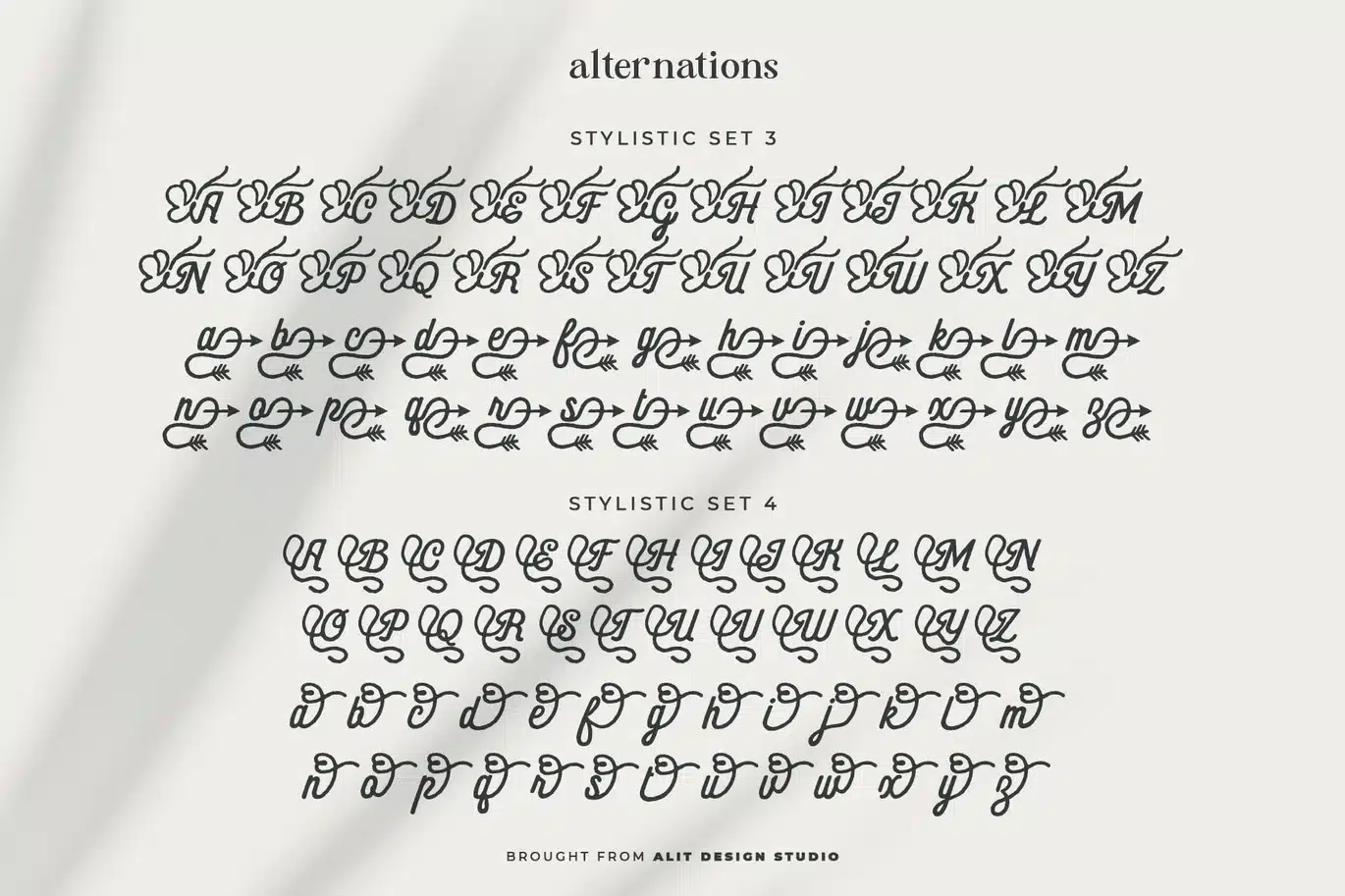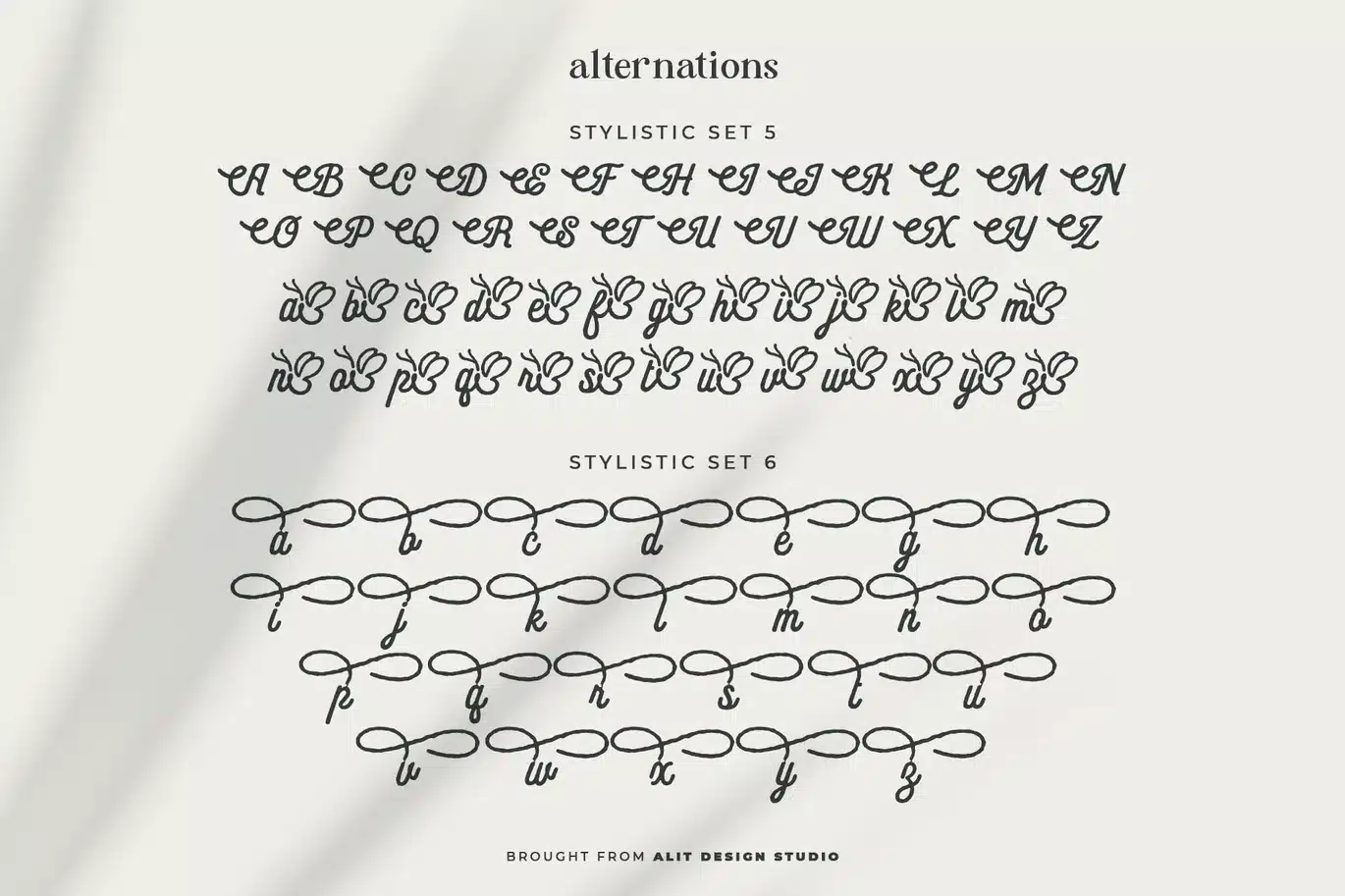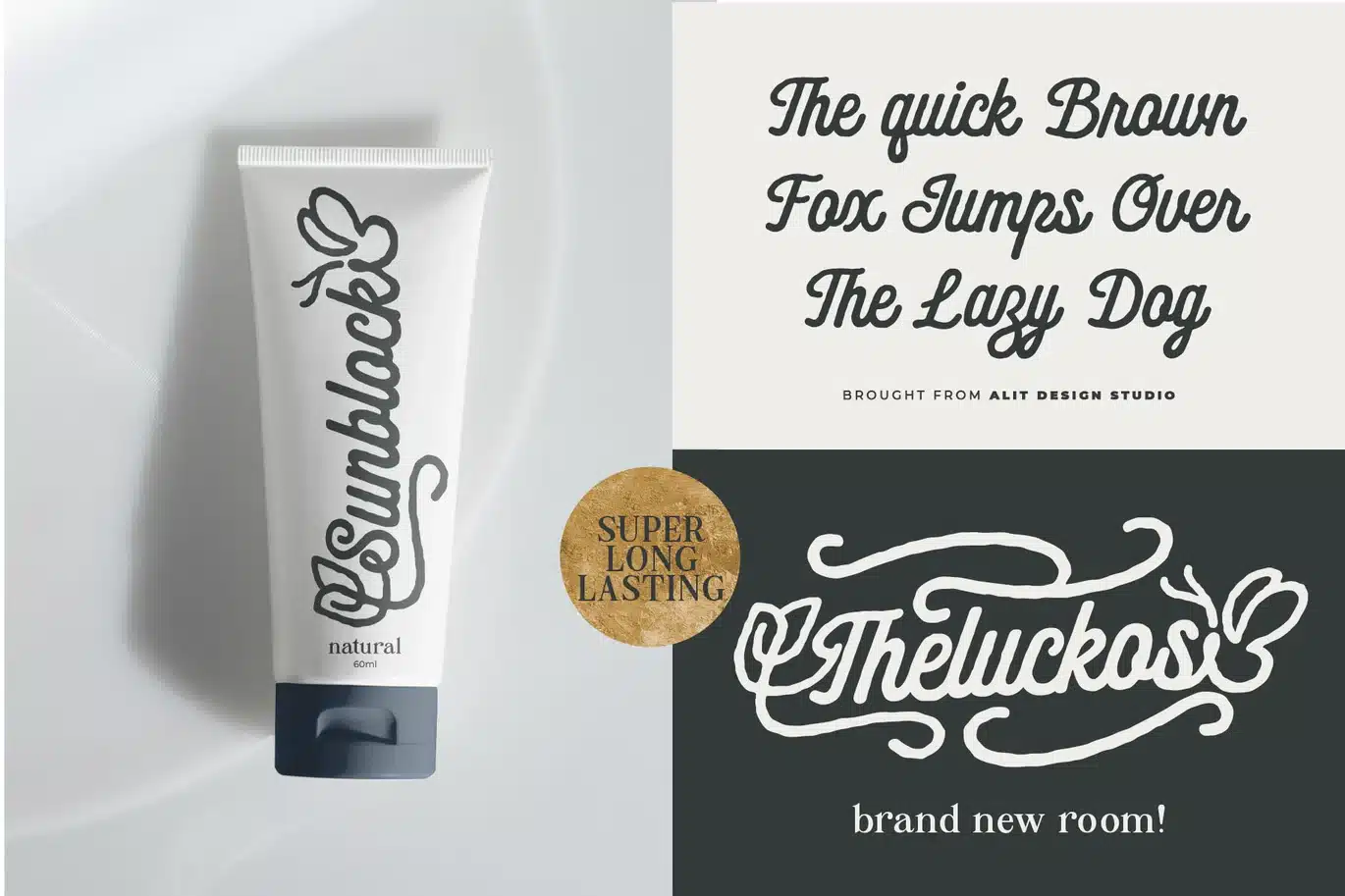
Hunter Flora Typeface Font
Hunter Flora Typeface - A Botanical Handwritten Script
Welcome to the enchanting world of Hunter Flora, a beautifully crafted handwritten script brought to you by Alit Design Studio. Designed to bring a touch of organic nature and playful charm to your projects, Hunter Flora is the perfect balance between casual elegance and creative versatility.
Boasting an impressive collection of 866 glyphs, this typeface is a true powerhouse for designers. The real magic of Hunter Flora lies in its extensive customization options. Dive into 12 incredible Stylistic Sets featuring beautifully integrated botanical leaves, delicate butterflies, rustic arrows, and elegant swooshing tails. These meticulously designed alternates allow you to add custom flourishes to your text, making every word look like a custom piece of lettering art.
Whether you are designing feminine logos, organic skincare packaging, heartfelt quote posters, wedding invitations, or charming apparel, Hunter Flora adapts to your vision effortlessly.
- Basic Latin A-Z and a-z
- 866 Total Glyphs
- 12 Stylistic Sets: Featuring beautiful botanical leaves, butterflies, arrows, and decorative swashes.
- Custom Ligatures: Ensuring a smooth, natural handwriting flow.
- Multilingual Support.
Bring your creative ideas to life and let your designs bloom with the Hunter Flora Typeface!